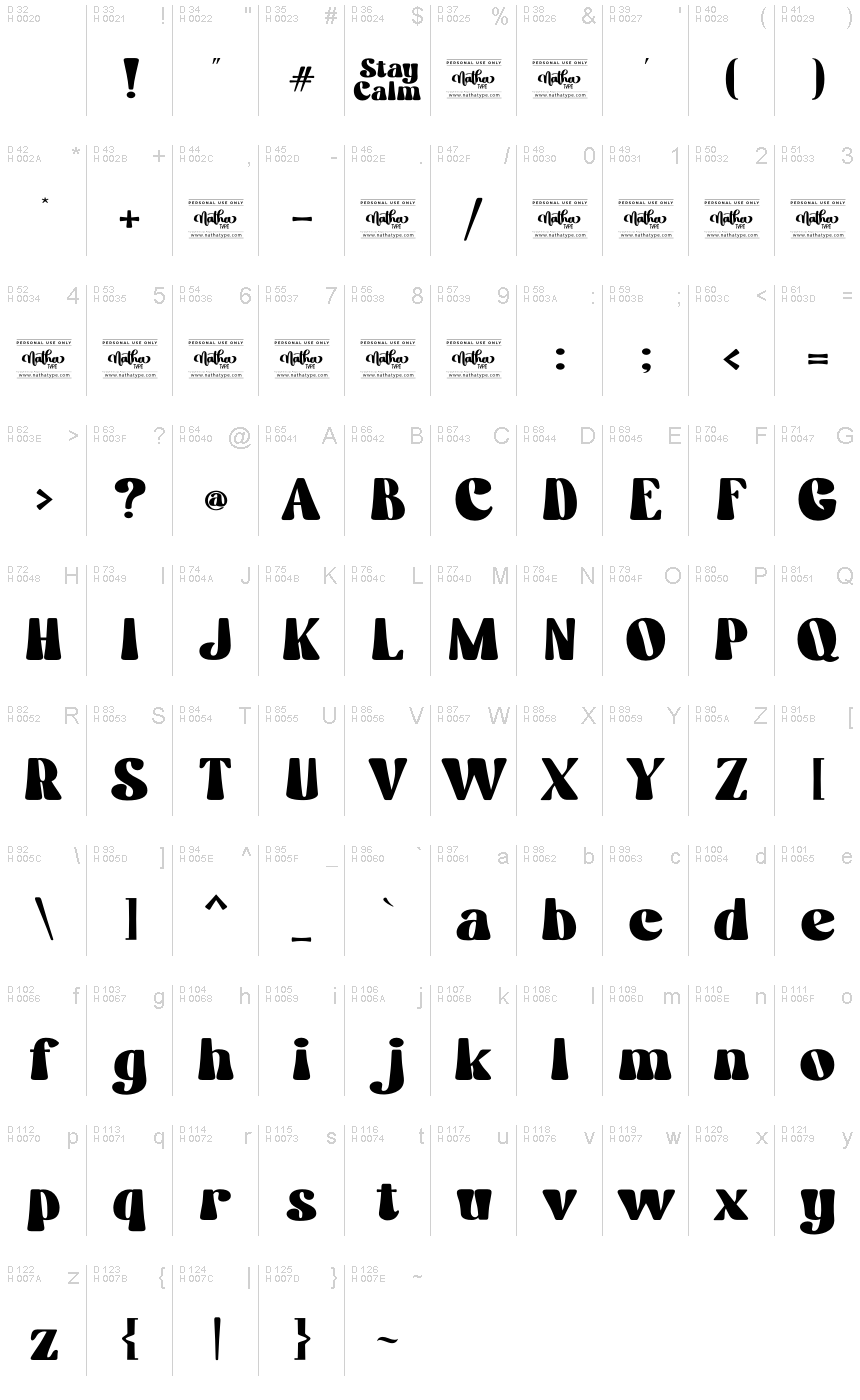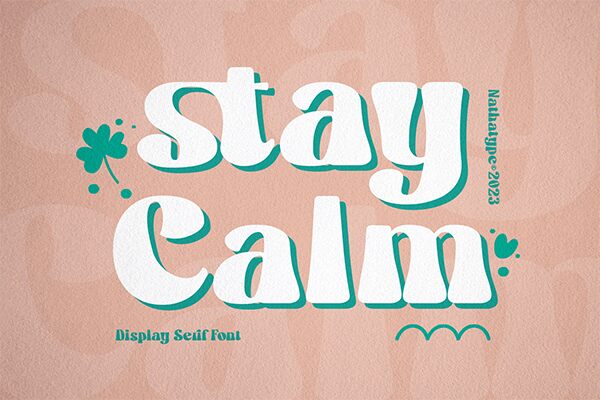
Stay Calm Personal Use
The Stay Calm font, designed by Nathatype, exudes a striking groovy aesthetic with its bold, captivating form. This display font's distinctive character draws the eye, radiating a sense of calm and confidence. Its unique letterforms, marked by fluid curves and a strong, unwavering presence, create a visually captivating experience.
This versatile font lends itself well to a variety of design applications, from eye-catching headlines and impactful branding to dynamic event posters and invitations. The Stay Calm font's bold, confident personality makes it an excellent choice for projects that require a bold, attention-grabbing typographic presence, such as in the realms of fashion, music, and lifestyle.